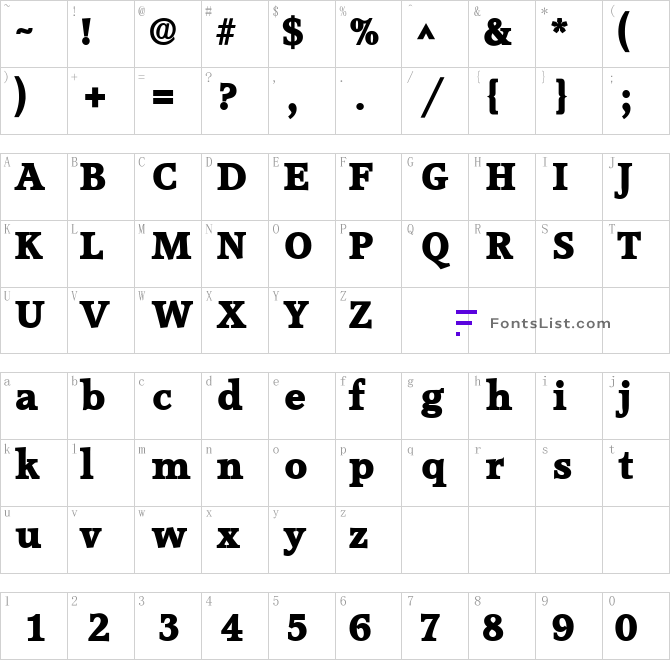
- Font Name:Accord Heavy SF
- Subfamily:FontMonger:Accord Heavy SF Bold
- Full Name:Accord Heavy SF Bold
Accord-Heavy-SF-Bold.ttf is a very beautiful artistic font, Accord-Heavy-SF-Bold.ttf is widely used in the design and printing of various books and pictures,Accord-Heavy-SF-Bold.ttf has a strong visual impact,Accord-Heavy-SF-Bold.ttf is a commonly used font in newspapers, magazines and books, and is used in posters, e-commerce Poster design, store design, logo design, font design and other fields.Accord-Heavy-SF-Bold.